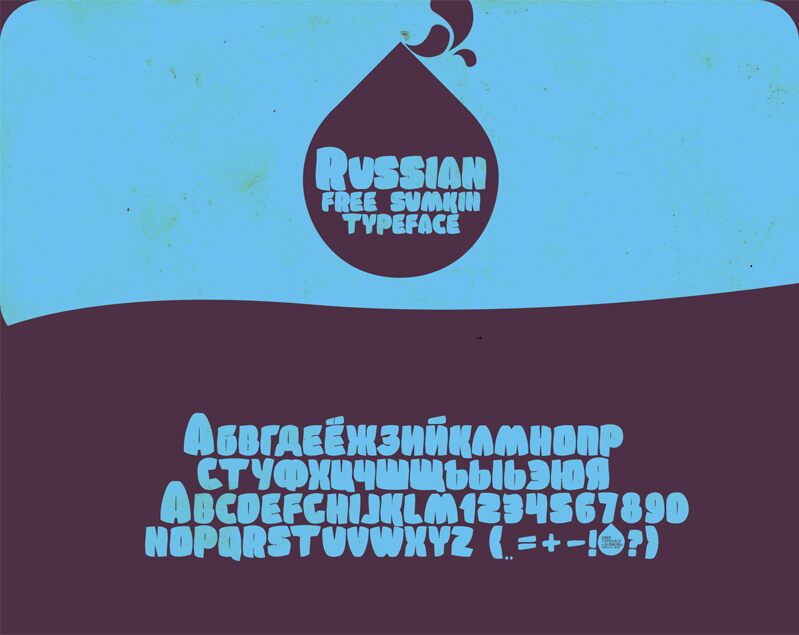
Sumkin Free Type by MRfrukta is a free cartoon display font with oversized, tightly packed forms. Its blunt curves and uneven edges give the lettering a cut-paper roughness. Narrow gaps and changing widths keep the dense silhouette lively rather than uniform.
Posters are its strongest setting, especially for comedy nights and loud music bills. The same squat, irregular shapes also suit snack packaging and playful merchandise, where the lettering can become part of the artwork. For casual brands, it can turn a name into a chunky handmade emblem.